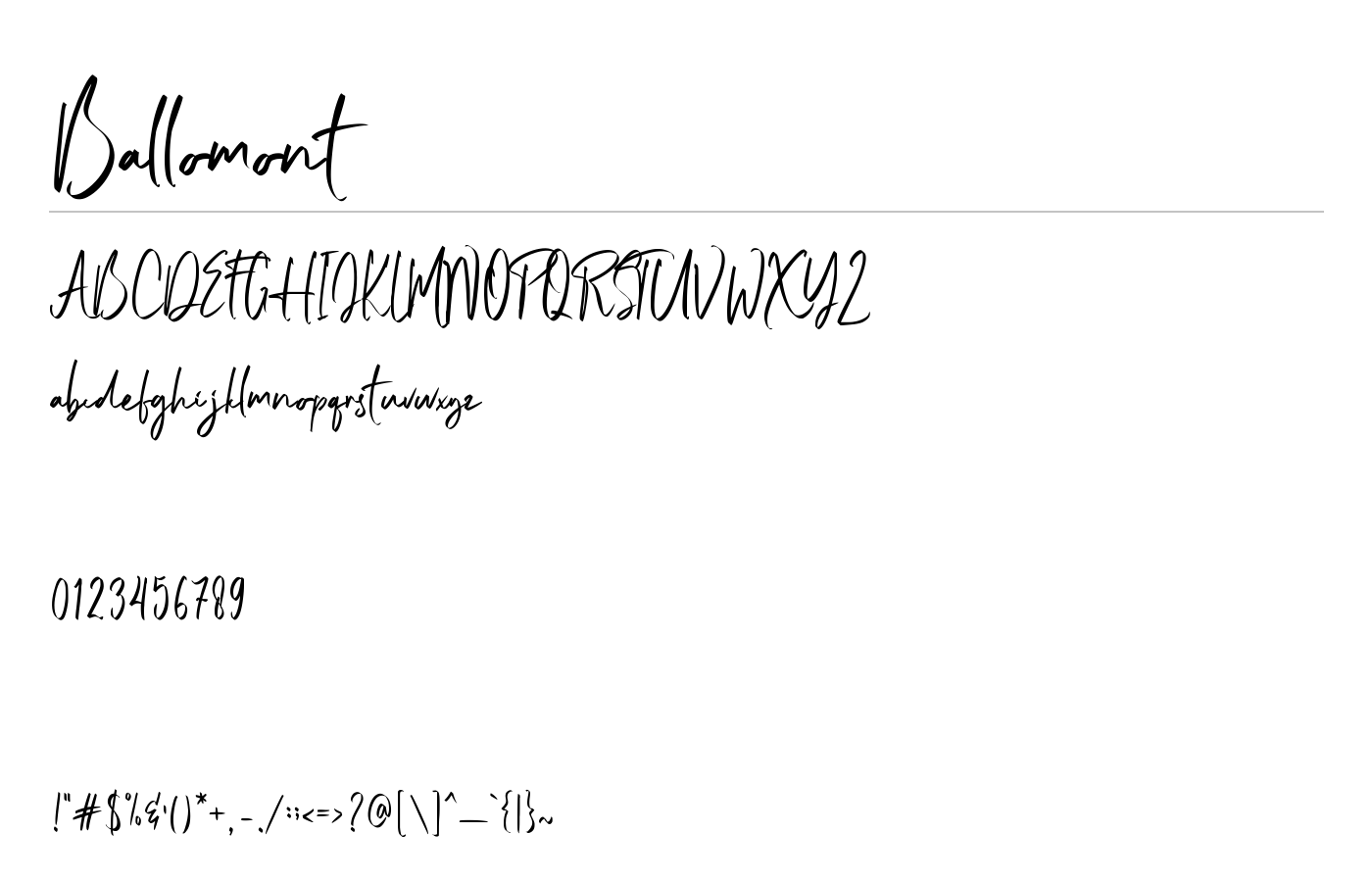
Ballomont is a slender, handwritten script font that exudes a casual yet elegant charm. With its tall, narrow letterforms and smooth, flowing strokes, it feels personal and artistic, making it perfect for creative branding, invitations, and modern editorial use where a touch of individuality is desired. Its delicate style works well in headlines or short text passages, adding a stylish, sincere voice to your design.
Ballomont Font
About Ballomont Font